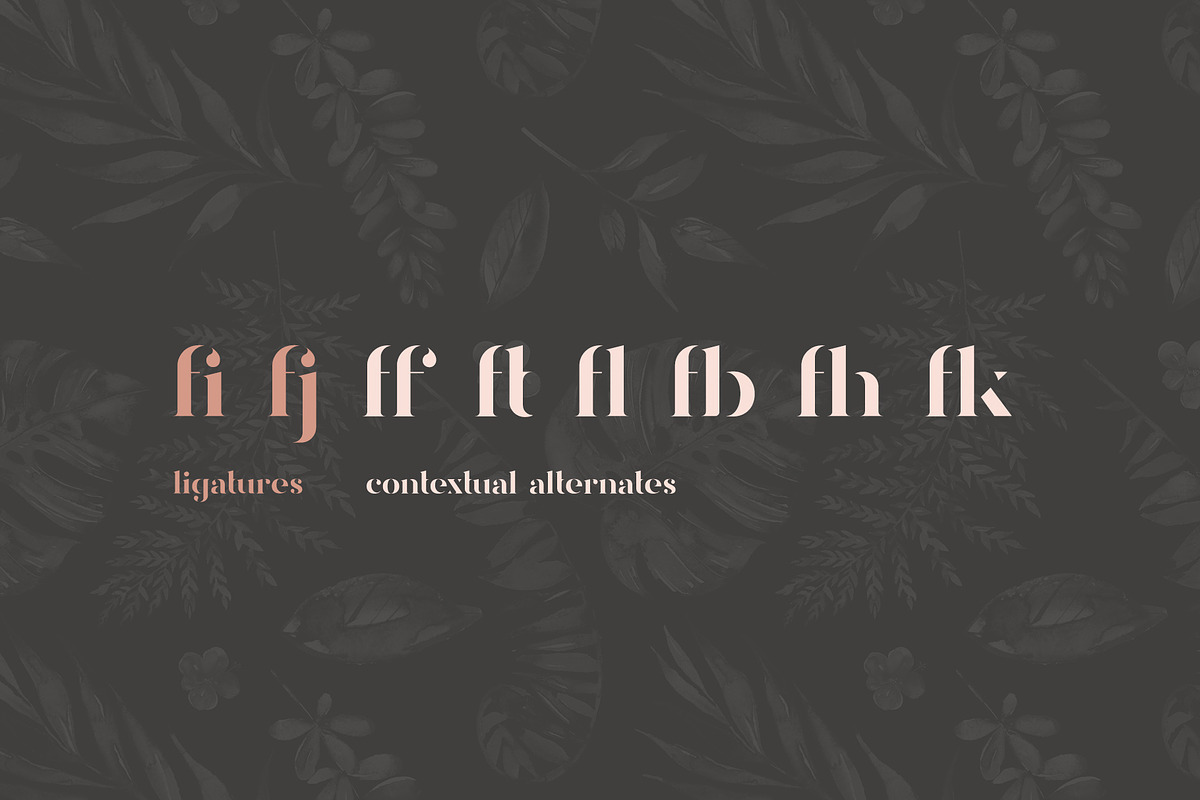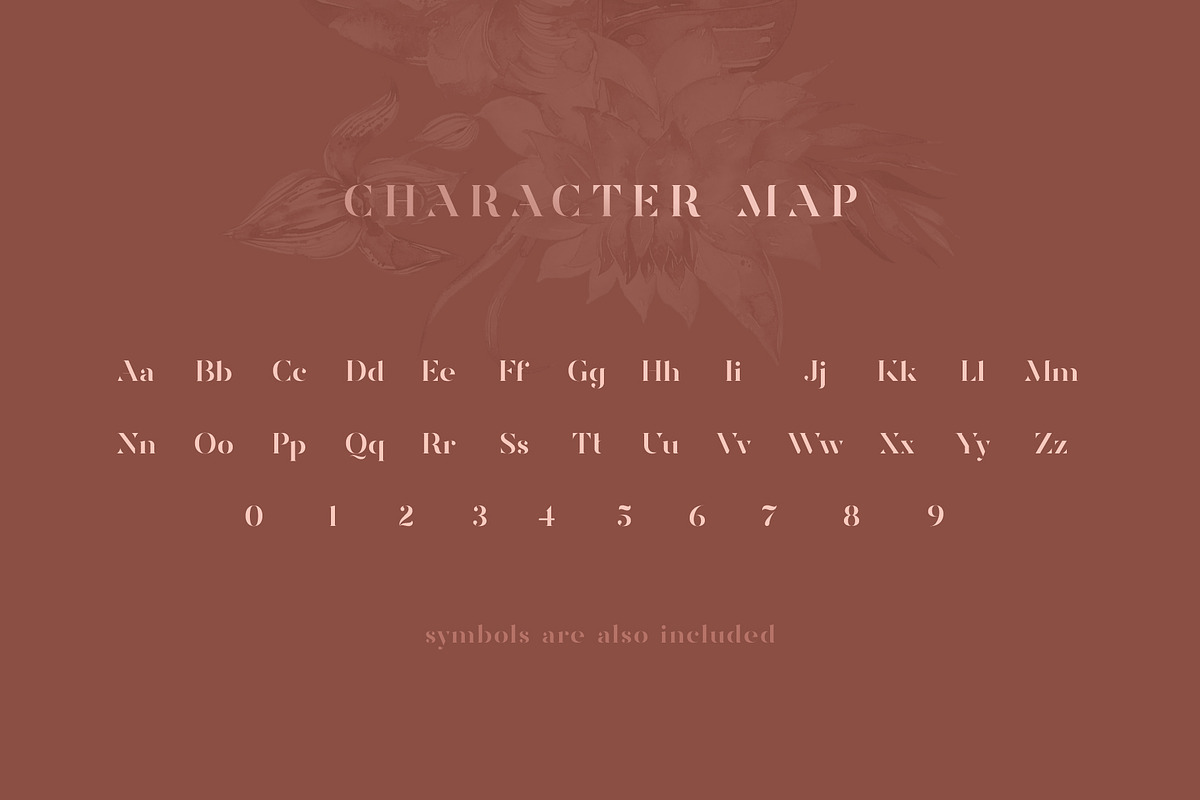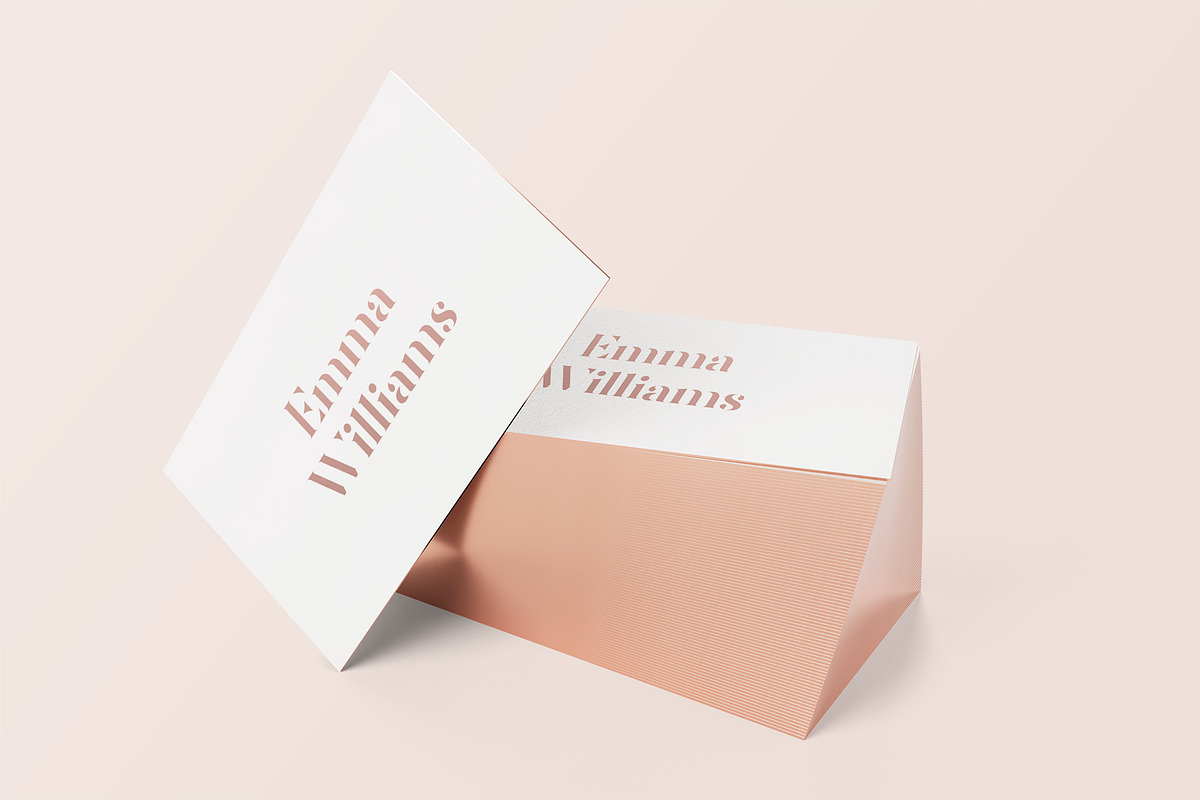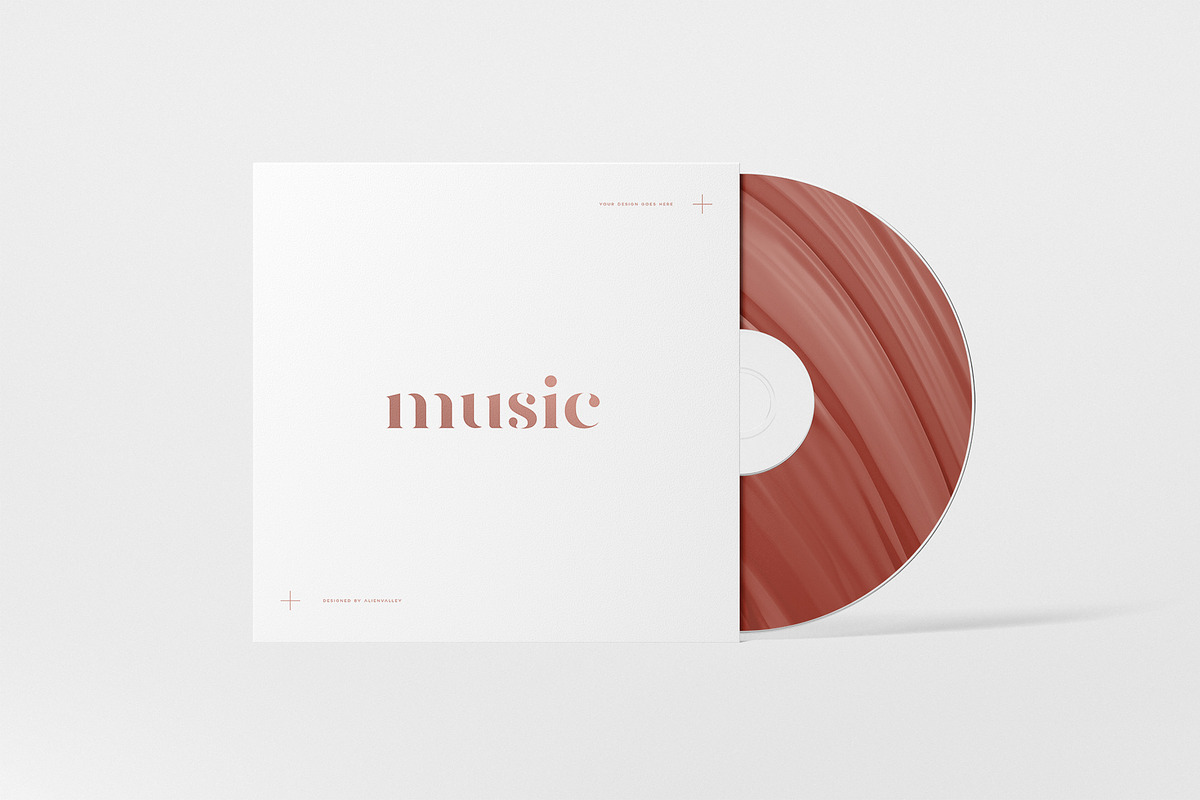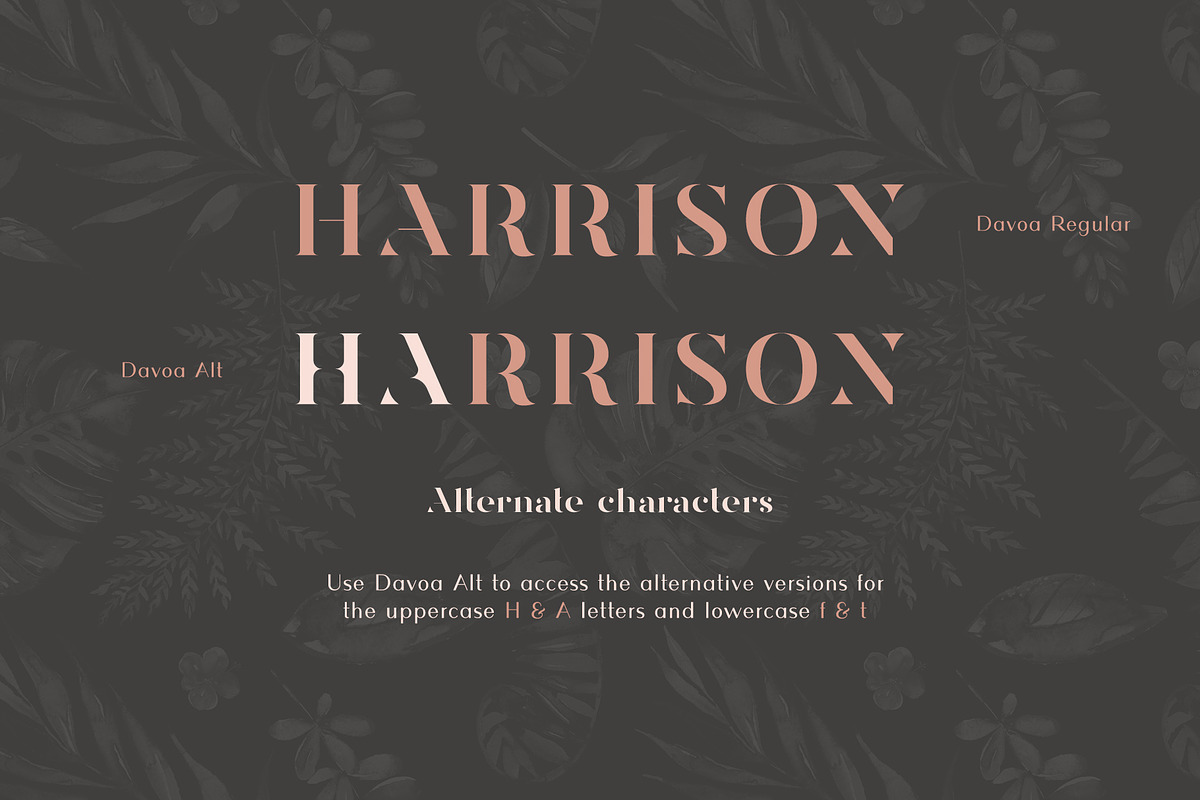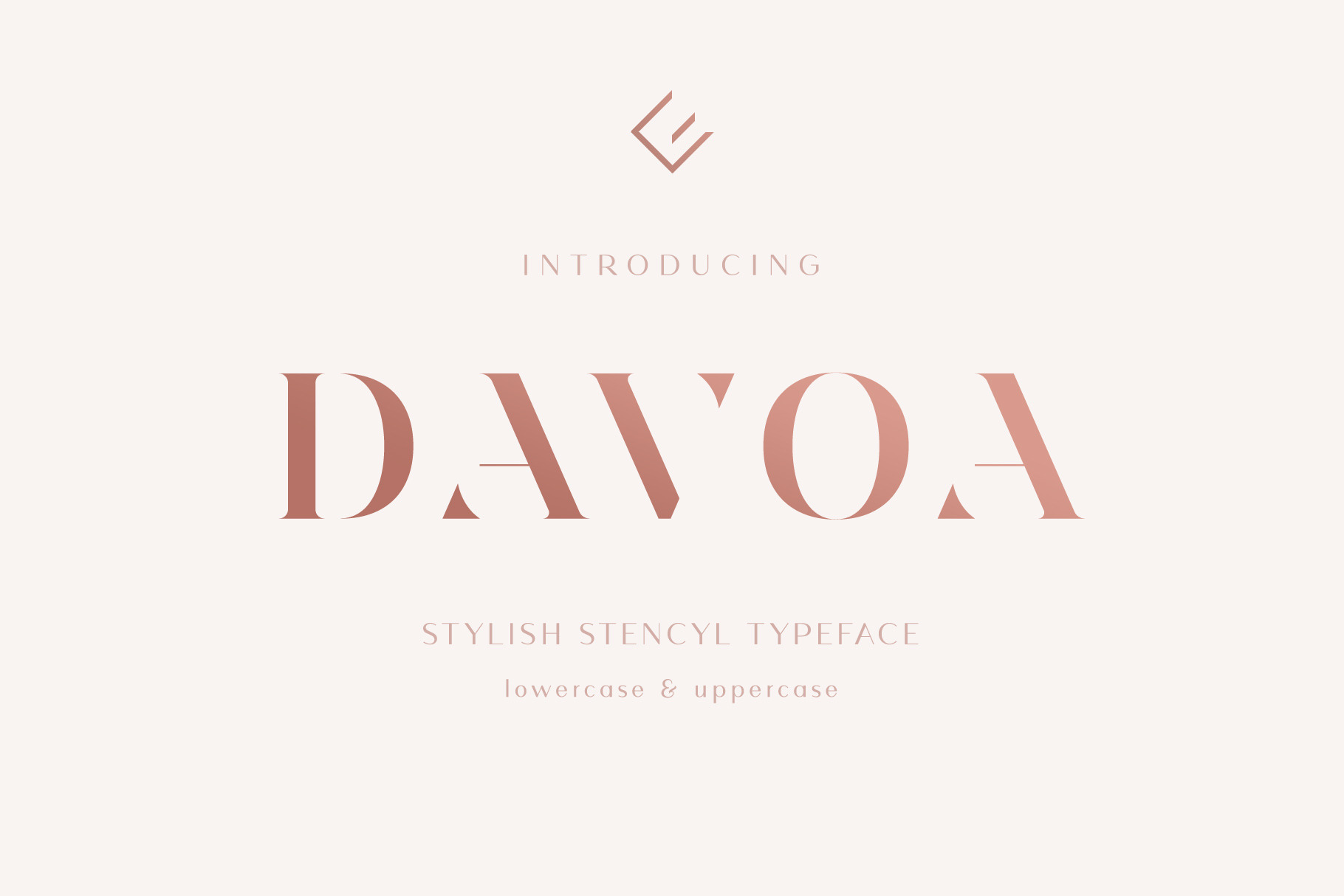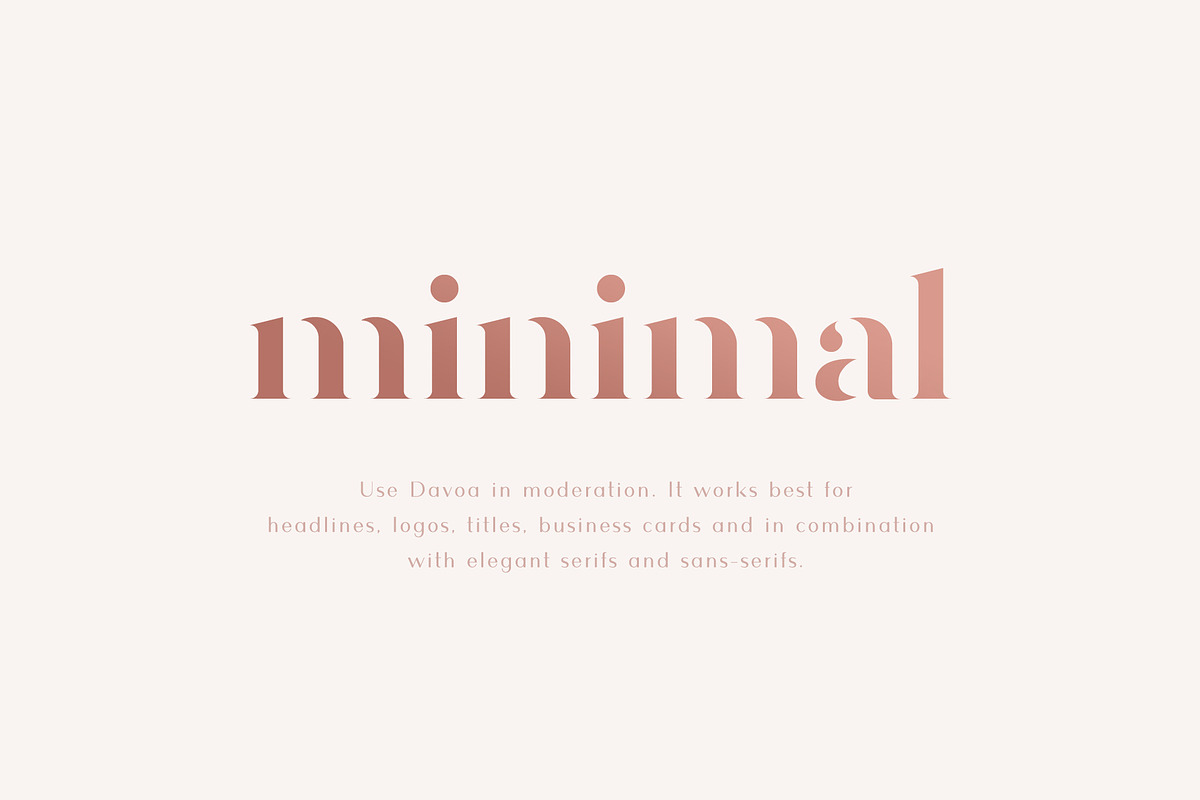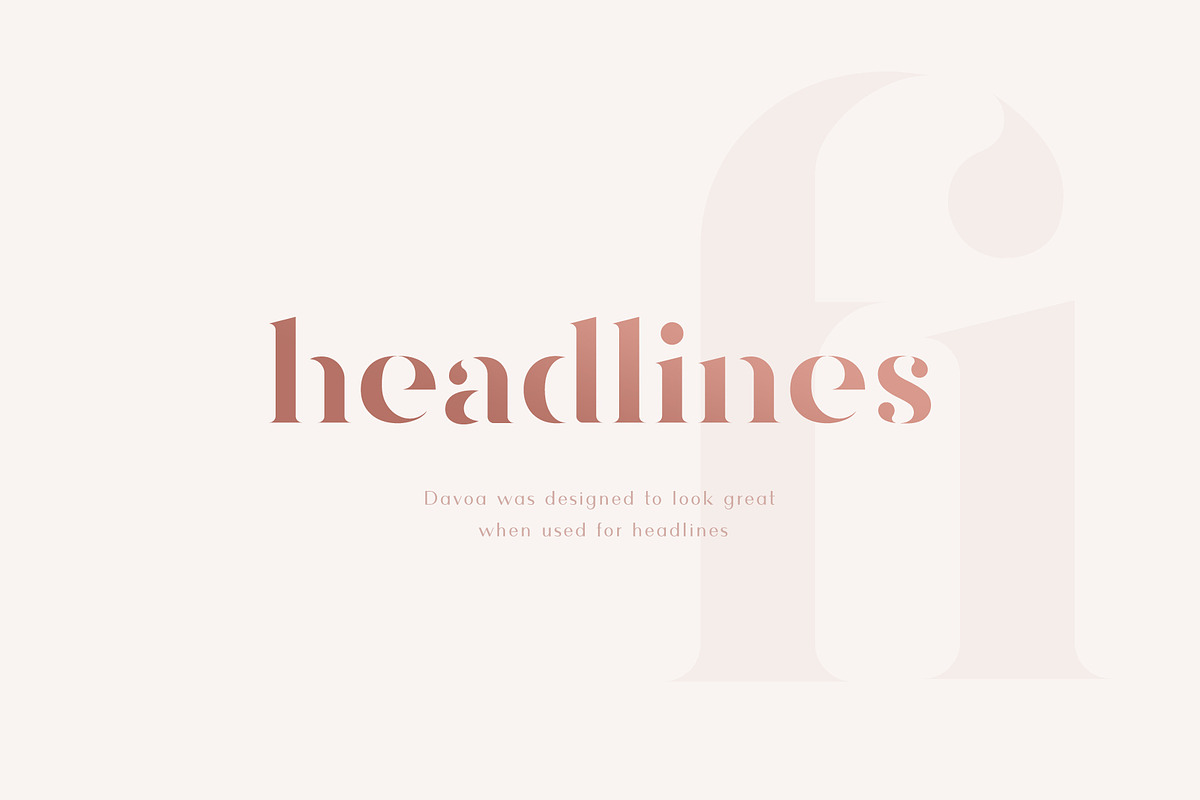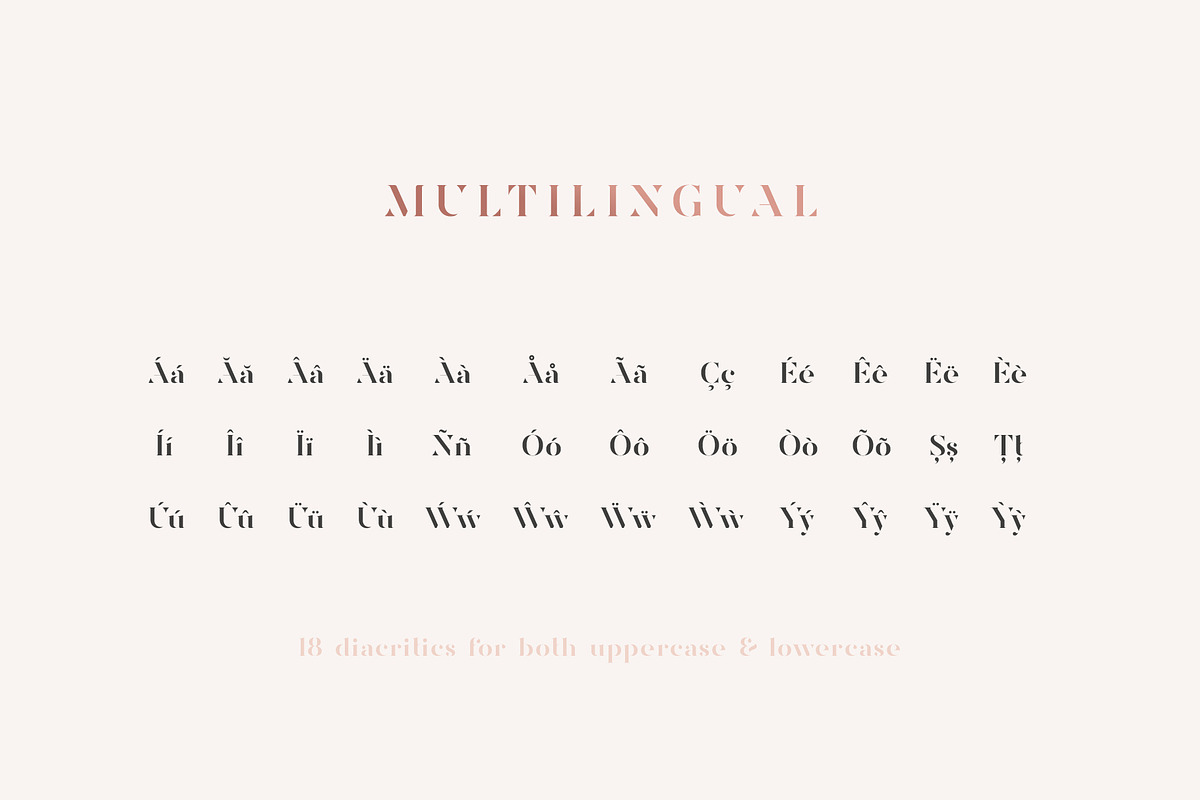
Davoa - Elegant Stencyl Typeface
Introducing Davoa, an elegant stencyl typeface meant for headlines, titles & names. The font is best used in combination with a stylish serif or sans-serif typeface and it will look great on business cards, book or magazine covers, labels, product packaging and more!
It comes with 2 flavors, Regular and Alt, with the Alt version featuring alternative versions for the uppercase H & A and lowercase f & t letters.
- 2 Styles (Regular & Alt)
- Uppercase & Lowercase Letters